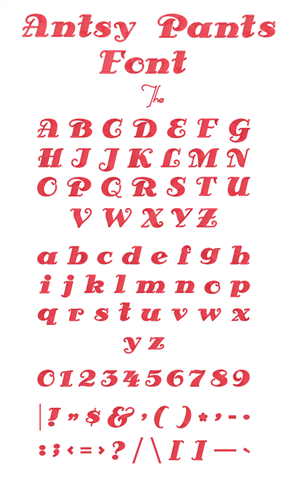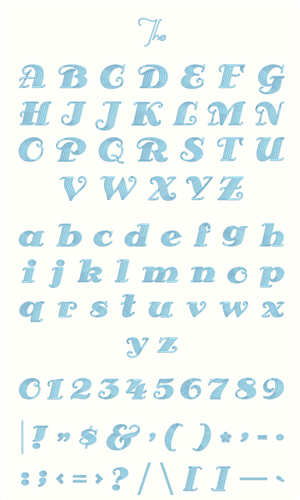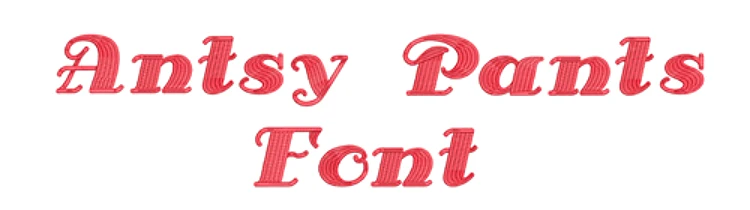
Maya Kreations is happy to present Antsy Pants Font Embroidery Font - Playful Handwriting Style - PES, DST & 9 formats machine embroidery font which has Playful cursive machine embroidery font ideal for fun projects on items like pillows and tote bags. This font has a lively appearance with rounded edges, offered in PES, DST, and 9 other formats. included. If you would like to view more embroidery fonts and alphabets please search our embroidery fonts page.